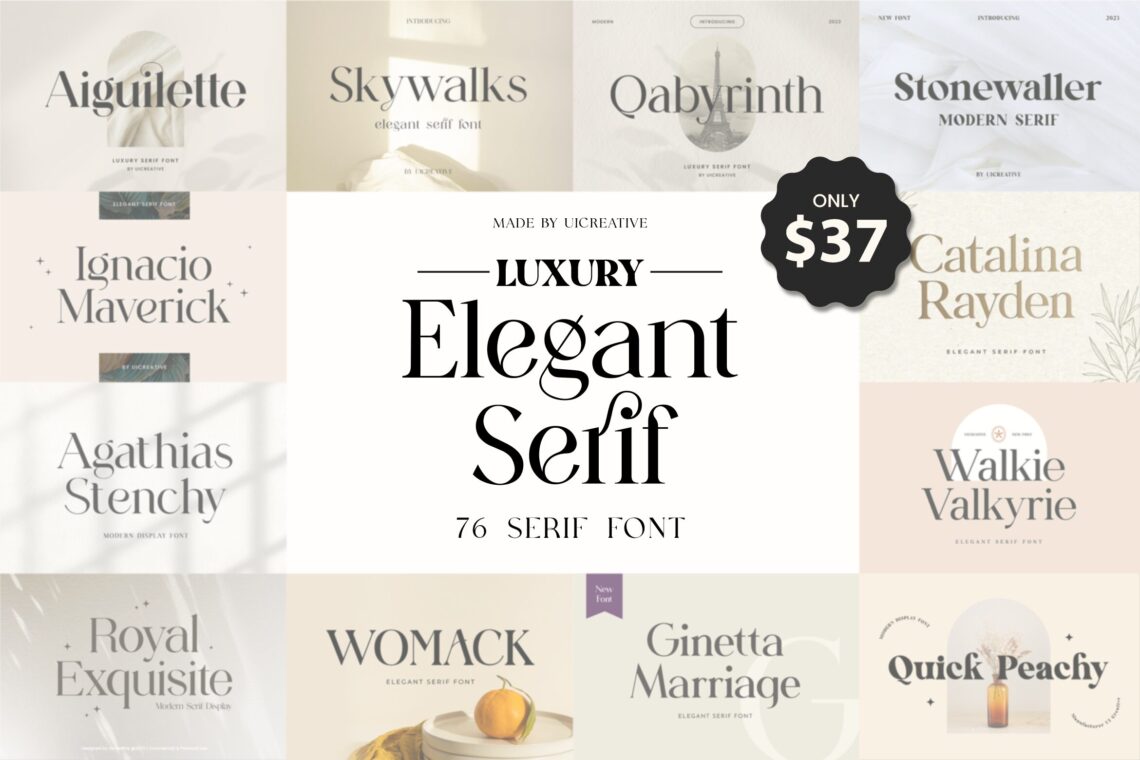
Luxury Elegant Serif Font Bundles
About the Product
Introducing the ultimate tool to elevate your designs our Luxury Elegant Serif Font Bundles! This digital asset is a must-have for all creatives, offering a carefully curated selection of modern, stylish, and versatile fonts. Each font has been meticulously designed with a focus on readability and elegance, making them ideal for a wide range of – from sophisticated logos to heartfelt wedding invitations and engaging social media posts. As these are digital assets, you can download and start using them instantly, letting your creativity flow without any delay.
In an increasingly digital world, stand out with our Modern Display Serif Font Bundles. They’re not just fonts, they’re the tools to help you express your creativity and bring your ideas to life. So why wait? Add a touch of elegance and sophistication to your designs with our font bundles today!
List Font
- Watch Quinn Elegant Serif Font
- Washington Elegant Serif Font
- Dersira Elegant Serif Font
- Qualiyun Luxury Serif Font
- Diorama Mudixon Modern Serif Font
- Ferdinand Elegant Serif Font
- Gazelia Johnson Serif Display Font
- Catalina Rayden Serif Display Font
- Saint Bordeaux Serif Display Font
- Great Sailor Serif Display Font
- Tribenidaz Serif Display Font
- Galorine Serif Font
- Parfaite Valeu Serif Font
- Voltaire Frangela is Serif Font
- Emerland is Serif Font
- Woreta Karlina is Serif Font
- Zanie Brovia Display
- Ginetta Marriage Serif Font
- Walkie Valkyrie Serif Font Family
- Quick Peachy Classic Serif Font
- Antolia Buchery Modern San Serif Font
- Polluxie Feminine Serif Font
- Catelyna Modern Serif Font
- Mont Glinoza Modern Serif Font
- Womack Modern Classic Serif Font
- Chic Royale Classy Serif Font
- Katie Milky Modern Serif Font
- Mangolaine Elegant Serif Font
- Magic Flavour Elegant Serif Font
- Agathias Stenchy Modern Serif Font
- Danilo Catalina Modern Classic Serif Font
- Jekaterina Modern Serif Font
- Chairman Butchier Elegant Serif Font
- Brown Rosemary Elegant Serif Font
- Victorian Britania Bold Modern Serif Font
- Brown Bulgary Modern Serif Font
- Hydrogenous Elegant Serif Font
- Chia Bianville Elegant Serif Font
- Sugardays Elegant Serif Font
- Romaunt Gaolines Elegant Serif Font
- Supravitally Luxury Serif Font
- Luxiachy Luxury Serif Font
- Paragone Luxury Serif Font
- Regardant Luxury Serif Font
- Aishwarya Luxury Serif Font
- Velomia Vanora Modern Serif Font
- Silvania Modern Serif Font
- Kinematical Elegant Serif Font
- Hegemonic Elegant Serif Font
- Brunizer Display Serif Font
- Romania Elegant Serif Font
- Paperboard Elegant Serif Font
- Ignacio Maverick Elegant Serif Font
- Stonewaller Modern Display Serif Font
- Micklest Luxury Serif Font
- Aiguilette Luxury Serif Font
- Heartbreak Luxury Serif Font
- Skywalks Elegant Serif Font
- Qabyrinth Luxury Serif Font
- Distrampler Luxury Serif Font
- Gliterboard Luxury Serif Font
- Banquette Luxury Serif Font
- Liquefier Elegant Serif Font
- Brogadier Elegant Serif Font
- Glycerints Elegant Serif Font
- Wainscoted Modern Serif Font
- Frozenca Modern Serif Display Font
- Dermagent Luxury Serif Display Font
- Bosky Evanish Luxury Sans Serif Font
- Roadblock Serif Font
- Ariane Coachella Elegant Serif Font
- Methadone Modern Serif Font
- Meditative Elegant Classic Serif Font
- Grandiosity Elegant Serif Font
- Royal Exquisite Modern Serif Font
- Sarcolenta Elegant Modern Serif Font